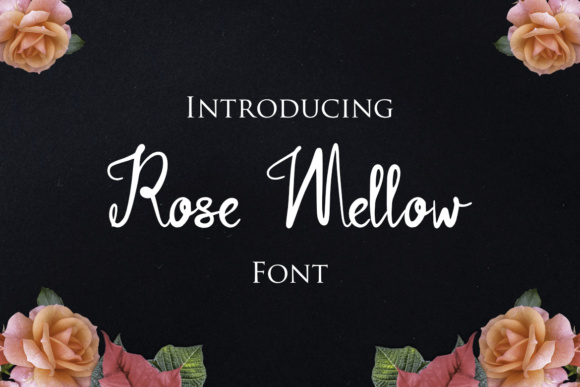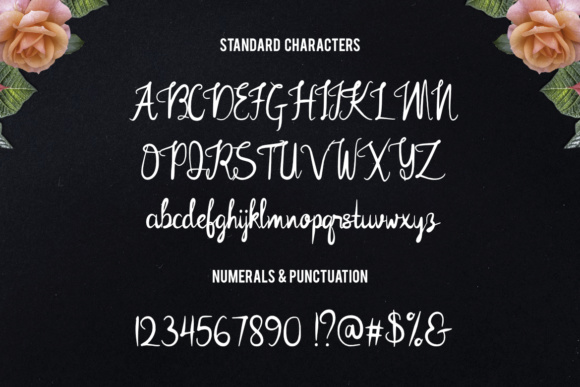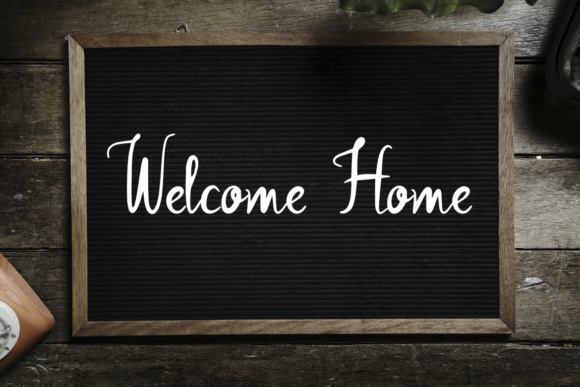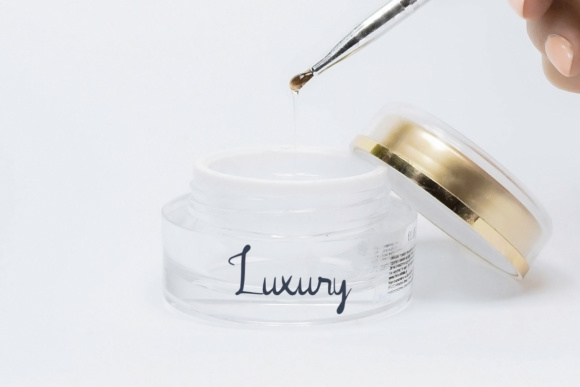
Rose Mellow Font
About Rose Mellow Font
Rose Mellow is a beautiful, handwritten display script that will make all your designs incredibly friendly and warm! This font works well in simple designs, and stands out as an organic and natural looking script option.